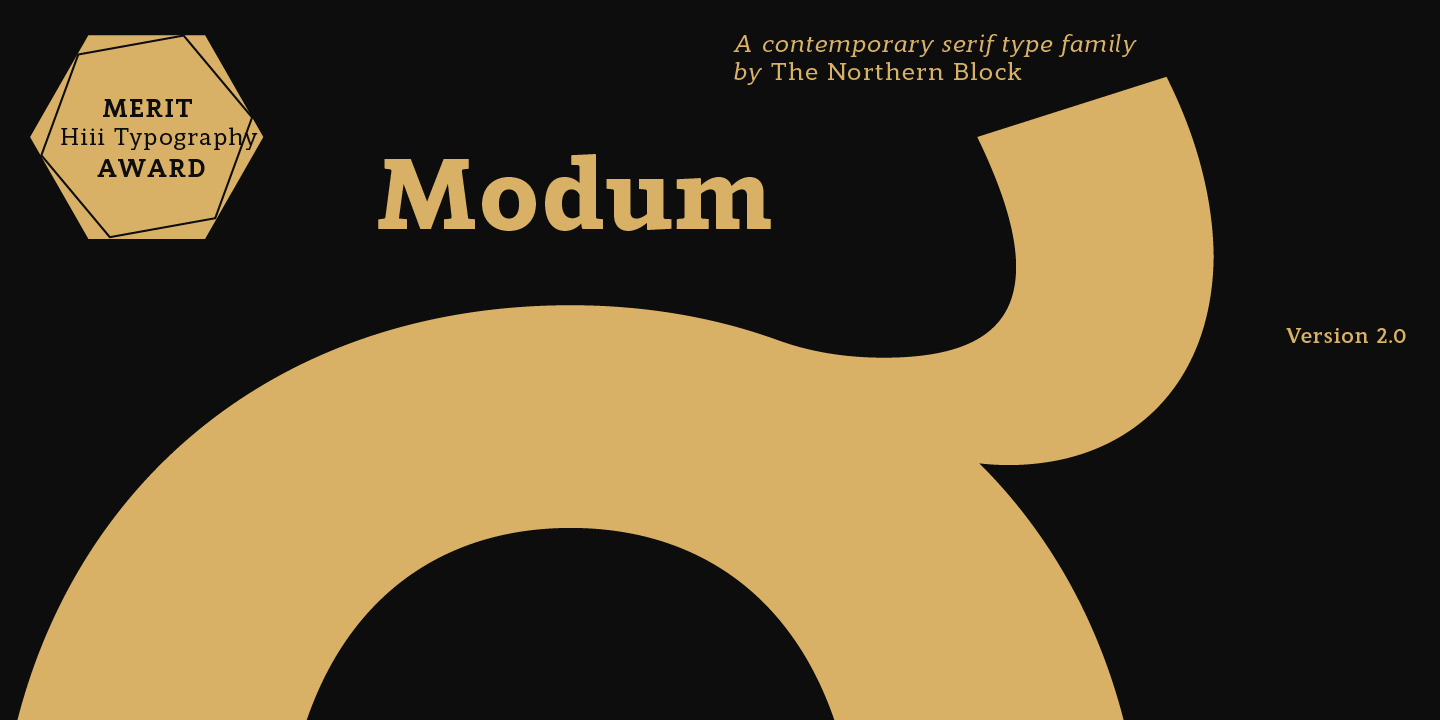
Modum Font is perfect for modern tech startups, contemporary architecture firms, minimalist brand identities, sleek product packaging, digital interface designs, progressive corporate communications, avant-garde publications, and innovative designs that require cutting-edge modular typography.
This font is exciting because it represents the future of systematic design through its modular letterforms that embody mathematical precision and contemporary aesthetic principles. The innovative character design reflects the harmony between geometric structure and organic flow, making it ideal for forward-thinking brands seeking to establish themselves as leaders in modern design philosophy.
Modum Font belongs to the contemporary geometric font family, featuring modular styling and systematic elements that enhance its effectiveness for tech-focused and design-conscious applications.
Whether you're creating innovative startup branding or progressive architectural graphics, Modum Font Free Download delivers exceptional modernity and systematic elegance. This typeface perfectly balances structural logic with visual sophistication, making it essential for designers working on contemporary projects that demand both functionality and aesthetic excellence. The font's progressive presence works beautifully in digital interfaces, corporate communications, and modern signage, providing optimal readability while maintaining its modular character that transforms any design with contemporary precision and establishes visual systems across all media platforms and modern communications.